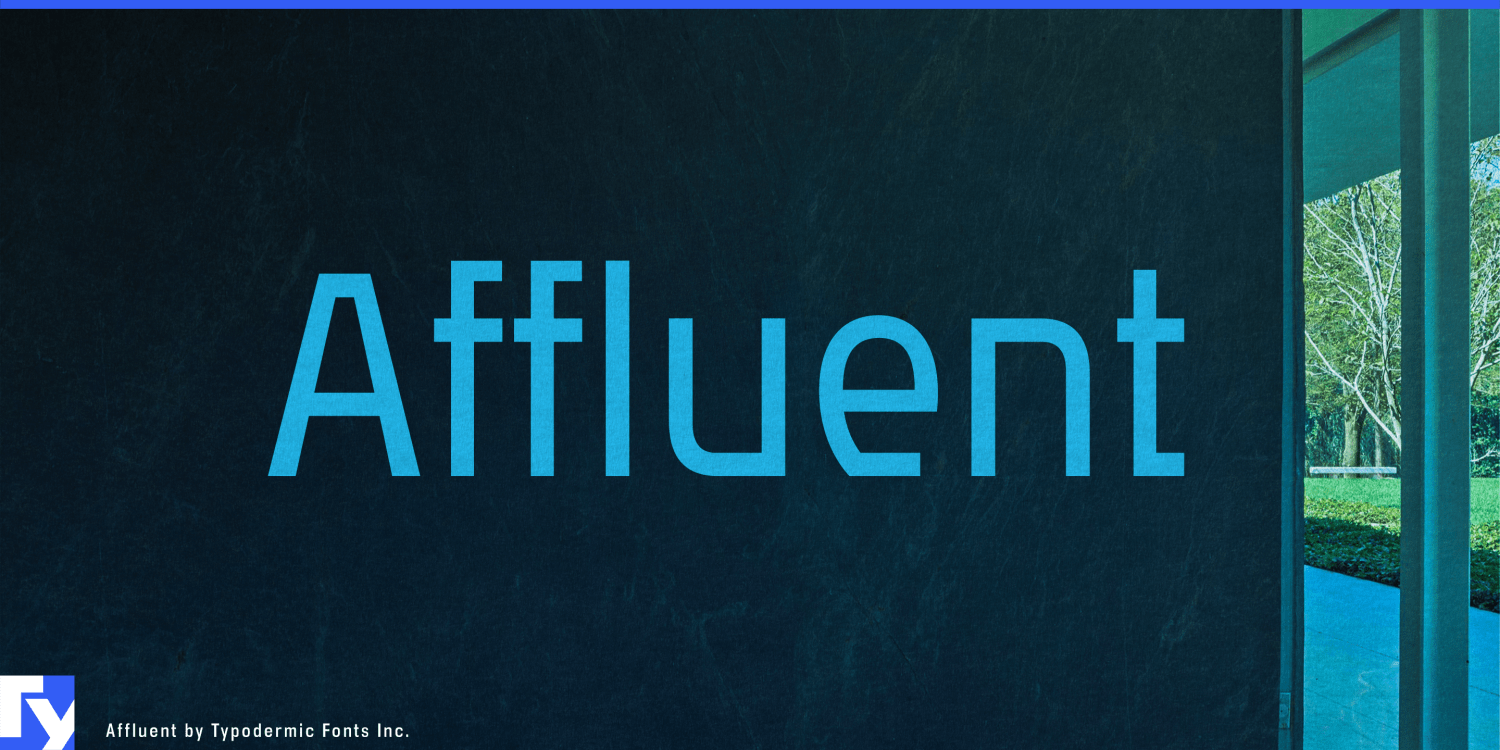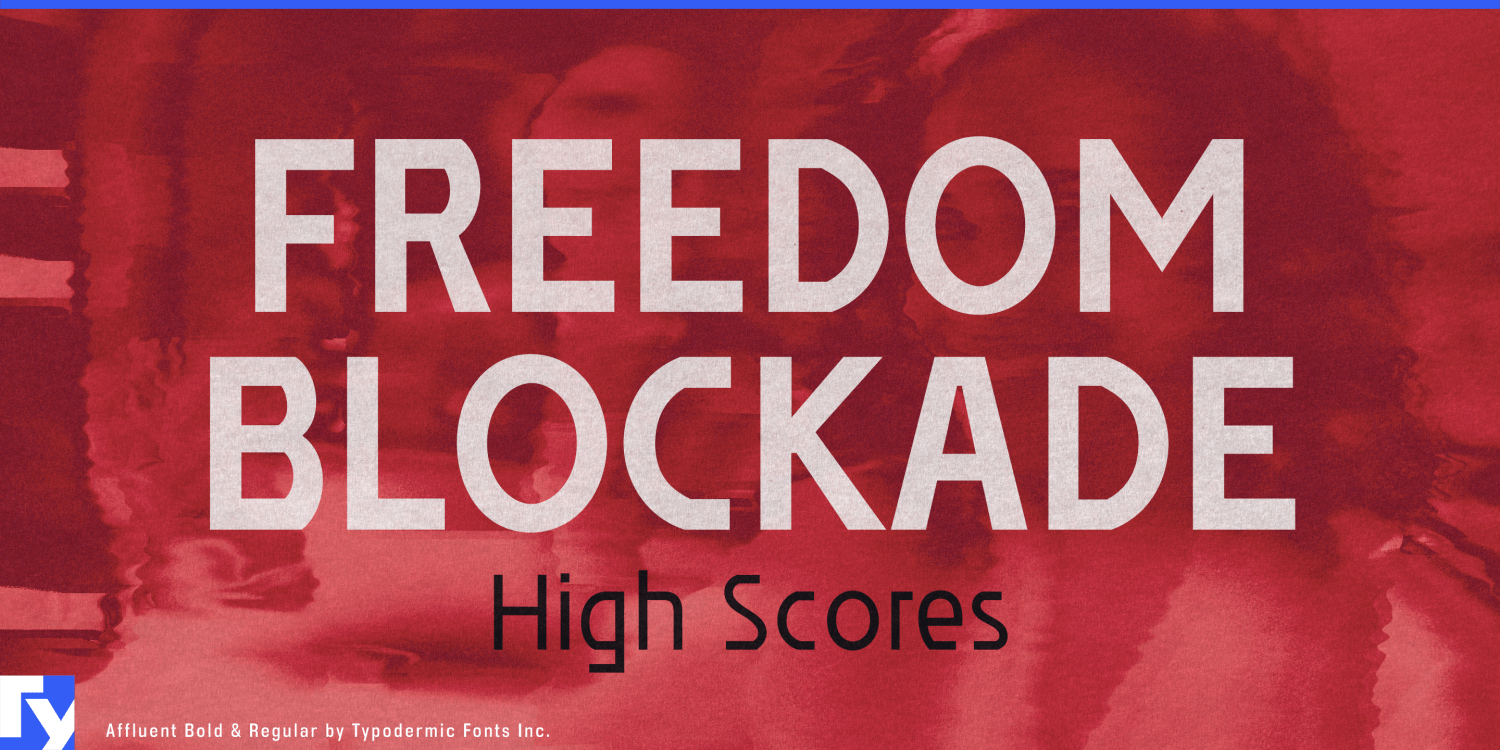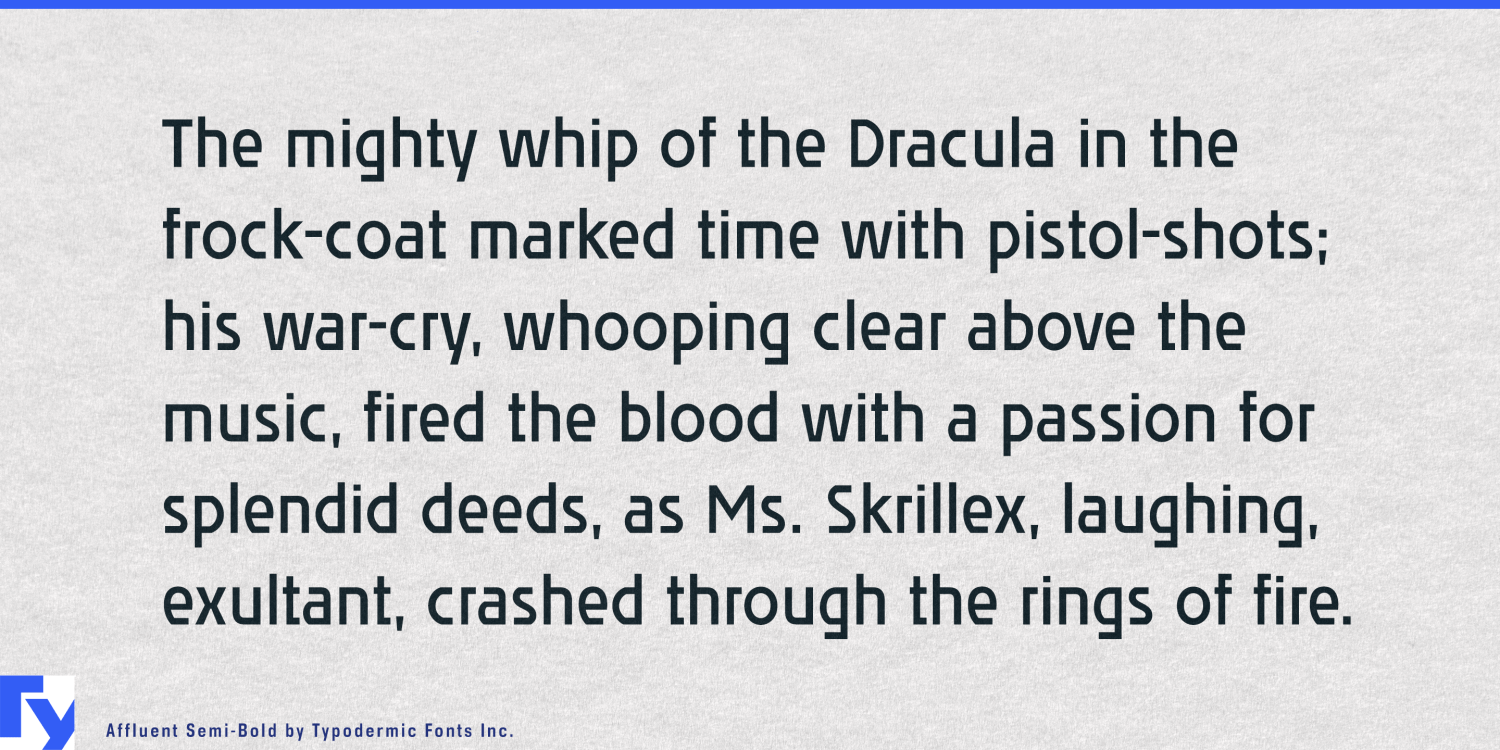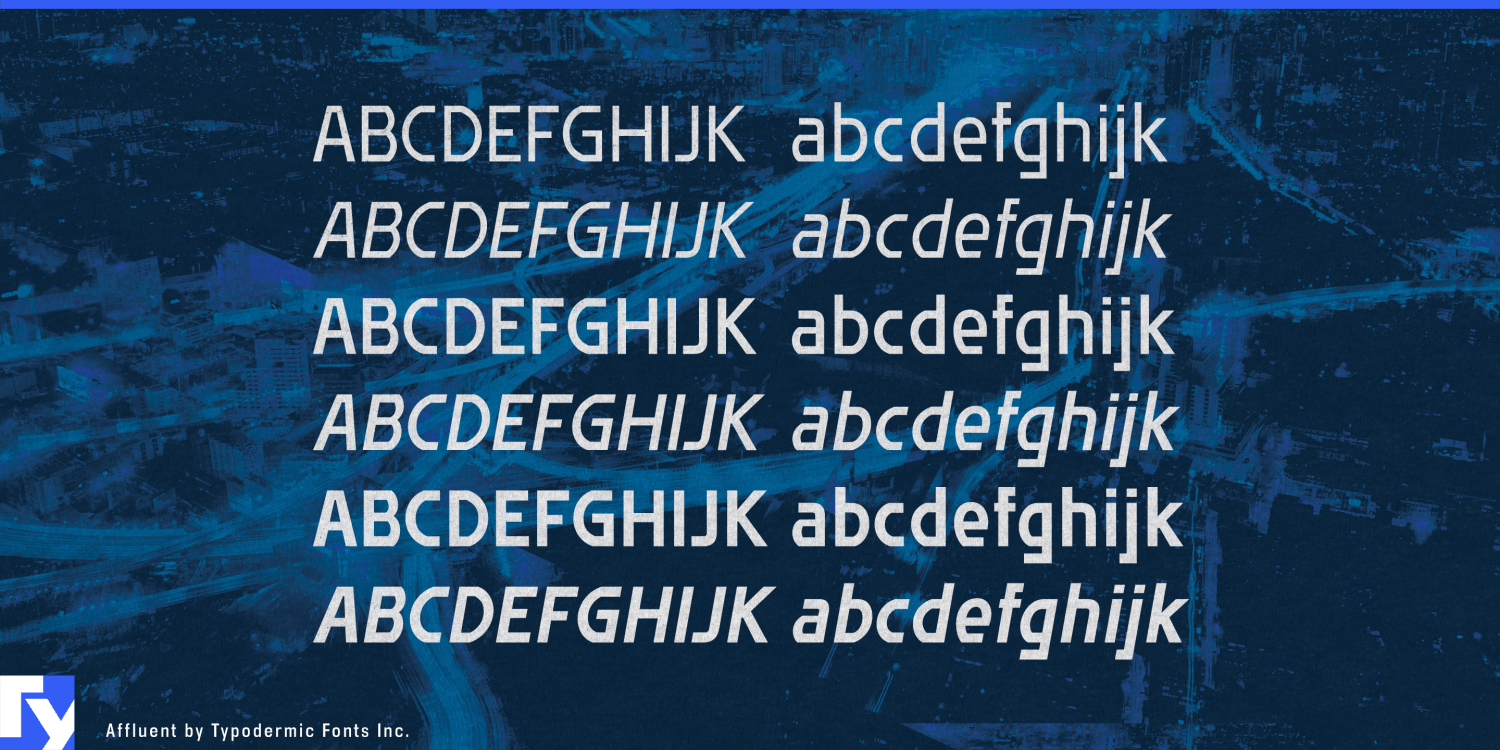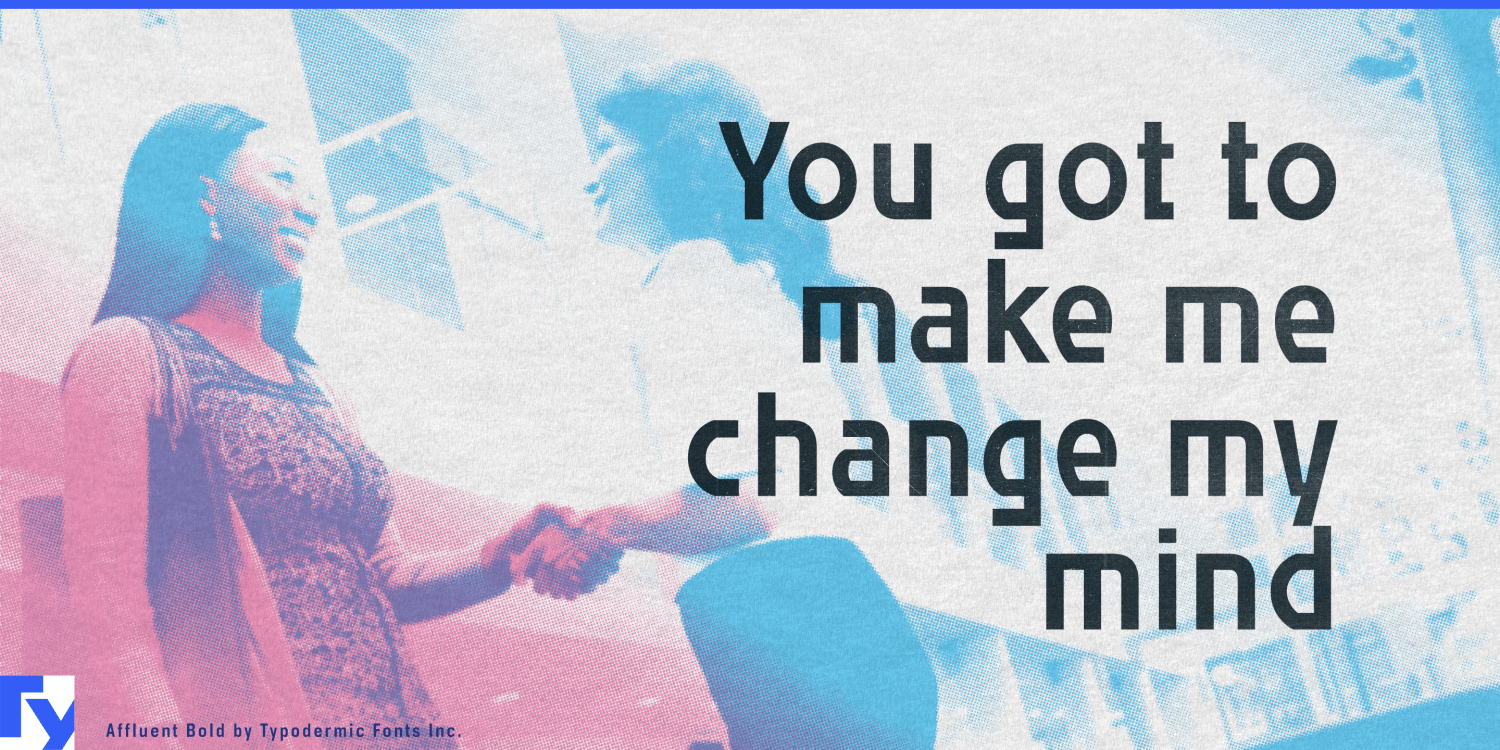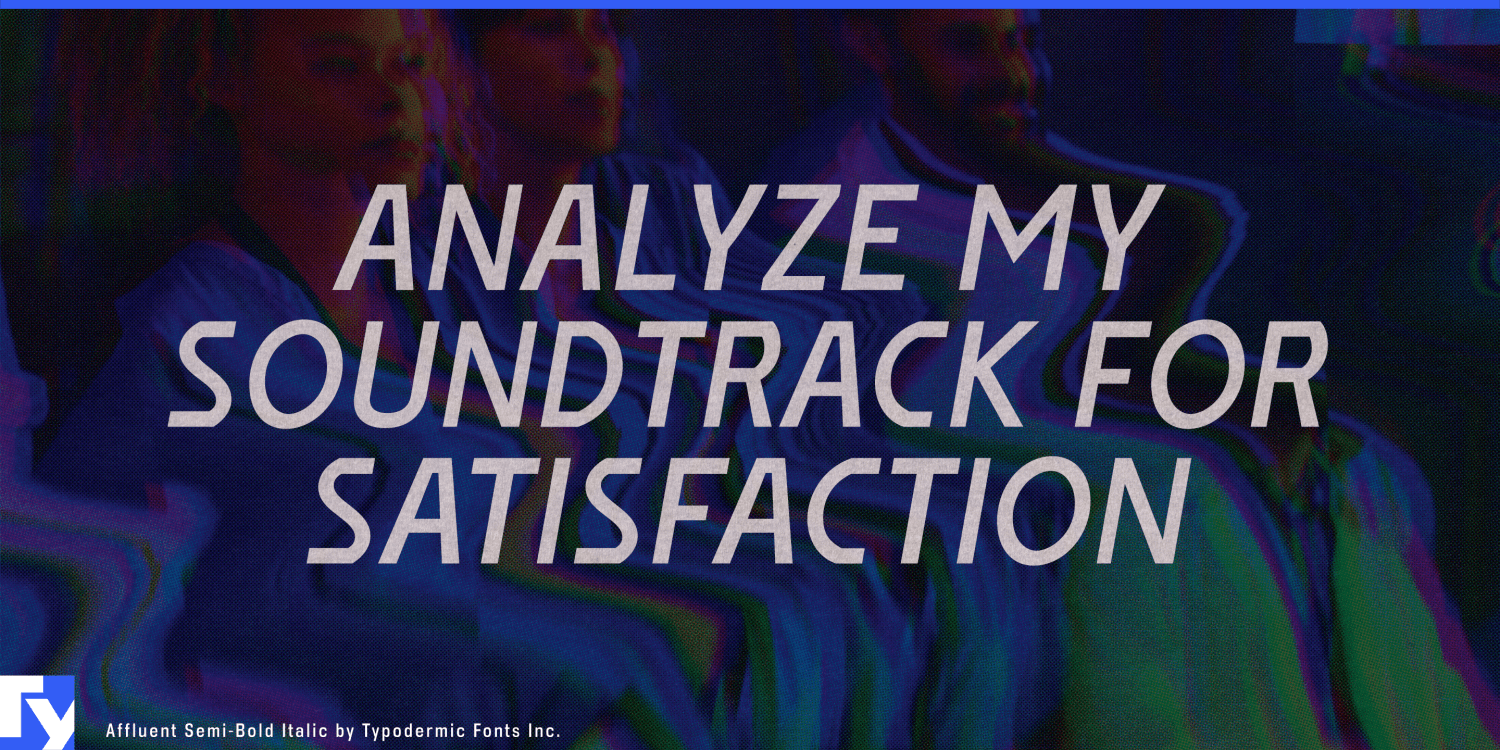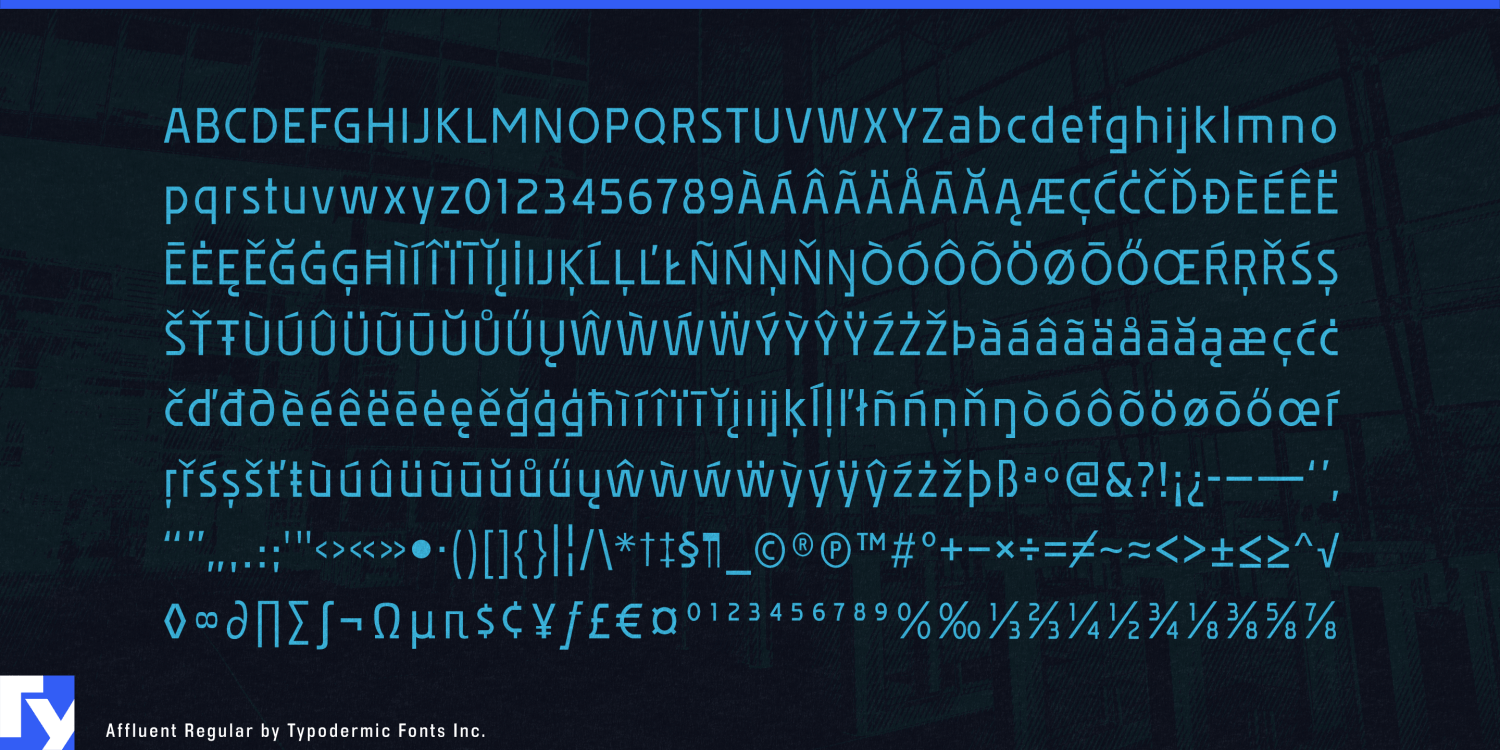
Affluent
Font Family by Typodermic
Affluent: where precision meets sophistication in typography. This sleek, modern sans-serif typeface embodies the essence of technical acumen and scientific elegance, making it the ideal choice for designs that demand both intelligence and style.
At the heart of Affluent’s distinctive character lies its unique juxtaposition of unconstrained vertical lines and meticulously quantized near-horizontal lines. This ingenious design creates a visual rhythm that’s both dynamic and precise—perfectly suited for conveying complex information with clarity and finesse.
Affluent’s versatility shines through its four carefully crafted styles: Regular, Semi-Bold, Bold, and Italic. This range allows designers to fine-tune their typographic expressions, ensuring that every project—whether for a military organization, scientific institute, or cutting-edge tech company—maintains its unique voice while benefiting from Affluent’s sophisticated aesthetics.
The typeface’s broad language support encompasses most Latin-based European writing system, enabling clear communication across diverse linguistic landscapes. From Afrikaans to Zulu, Affluent maintains its distinctive character, ensuring your message resonates with precision and elegance regardless of the language.
Affluent isn’t just a font; it’s a design tool that elevates your visual communication. Its ability to convey technical complexity with refined simplicity makes it invaluable for industries where precision and innovation are paramount. Whether you’re designing user interfaces, technical documentation, or branding materials for forward-thinking organizations, Affluent provides the typographic foundation to express your ideas with impact.
For designers and brands that refuse to settle for the mundane, Affluent offers a path to typographic distinction. It’s more than just letters on a page—it’s a statement of intent, a declaration of sophistication, and a commitment to clarity. Embrace Affluent, and watch as your designs transcend the ordinary, speaking volumes about your attention to detail and commitment to excellence.